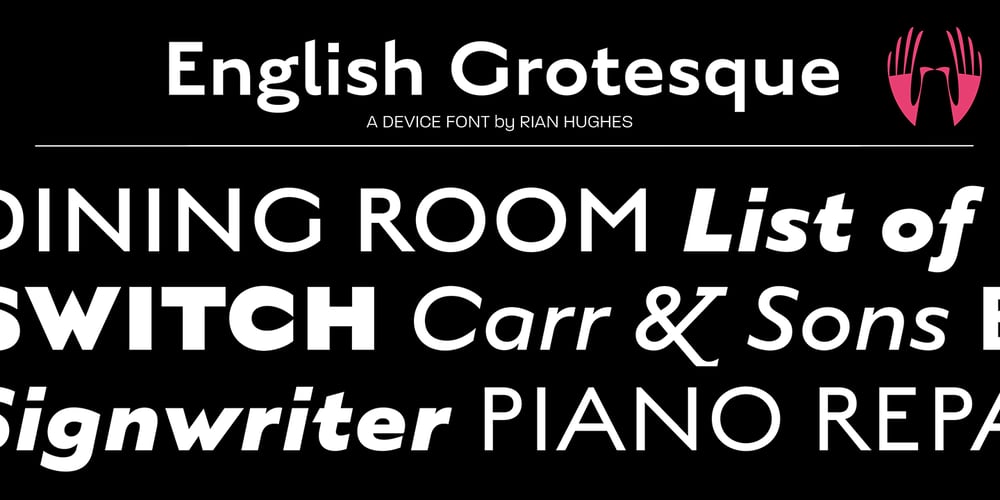
English Grotesque
English Grotesque Font Family was designed by Rian Hughes and published by Device. English Grotesque contains 16 styles and family package options. English Grotesque is based on the proportions of an early 20th century signwriter’s sans, emphasising the characteristic idiosyncrasies of type of the period. Sharing a similar Roman circle-and-square construction as Gill Sans or Johnston Railway, it has a wide T and W, a narrow S, and a long-tailed R. The Roman alphabet did not include a lower-case, and therefore early sans-serifs tended to base theirs on handwritten or cursive models, resulting in more even character widths. English Grotesque, by contrast, carries the more characterful proportions of the capitals through to the lower case. Available in six weights, with optional alternative versions for the Q, &, £ and J.